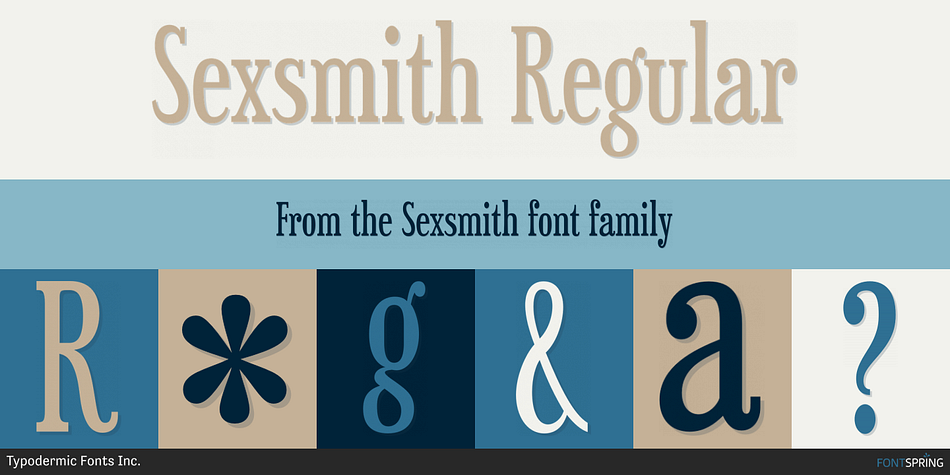
Sexsmith is a slab serif font published by Typodermic Fonts Inc.
Sexsmith is a long-shanked, cracker-barrel Clarendon. Cottage-style slab-serifs and homespun curves will give your words a down-home, folksy feeling.